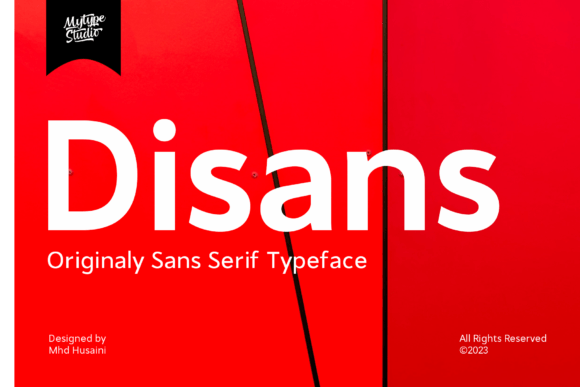
Introducing Disans Font, a captivating sans serif font family that exudes elegance, class, and beauty, designed to elevate your creative projects to new heights. Crafted with meticulous attention to detail by the renowned Mytype Studio, Disans is an exceptional collection that will transform your designs into masterpieces.
Immerse yourself in the world of Disans, where each letter dances with grace and fluidity, evoking a sense of sophistication and timeless charm. Its natural movement adds a touch of organic elegance, making it the perfect choice for branding projects, logos, wedding invitations, social media posts, advertisements, and more.
Whether you're a seasoned designer or a creative enthusiast, Disans will unleash your imagination and captivate your audience. Its versatility extends from product packaging and label designs to photography, watermarks, and stationery, seamlessly adapting to any project you envision.
With Disans, you'll effortlessly create designs that resonate with your audience, leaving a lasting impression that sets you apart from the ordinary. Its timeless beauty will add a touch of refinement to your branding, while its versatility will allow you to explore endless creative possibilities.
Embrace the allure of Disans and let your designs shine with elegance and sophistication. Experience the magic of fonts that speak volumes, conveying your message with grace and style. Discover the endless possibilities that await you with Disans, the font family that will redefine your creative journey.